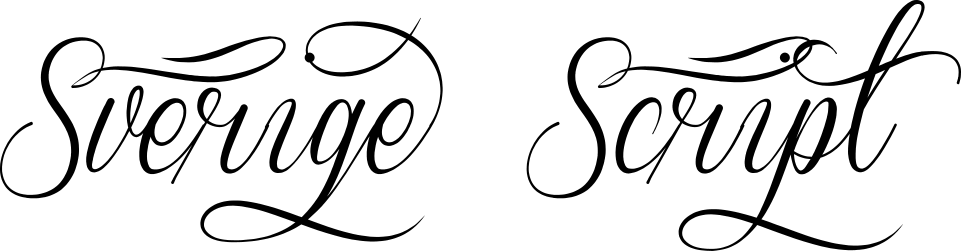
Sverige Script Font
Sverige Script font has a delicate style of lines. We recommend this font for those who need to personalize documents or need a personal signature on their papers. This font is in the category of handwriting, signature,…
Sverige Script font has a delicate style of lines. We recommend this font for those who need to personalize documents or need a personal signature on their papers. This font is in the category of handwriting, signature, and script fonts. It is the best option for designing wedding invitation cards, birthday parties, and happy themes with delicate style.